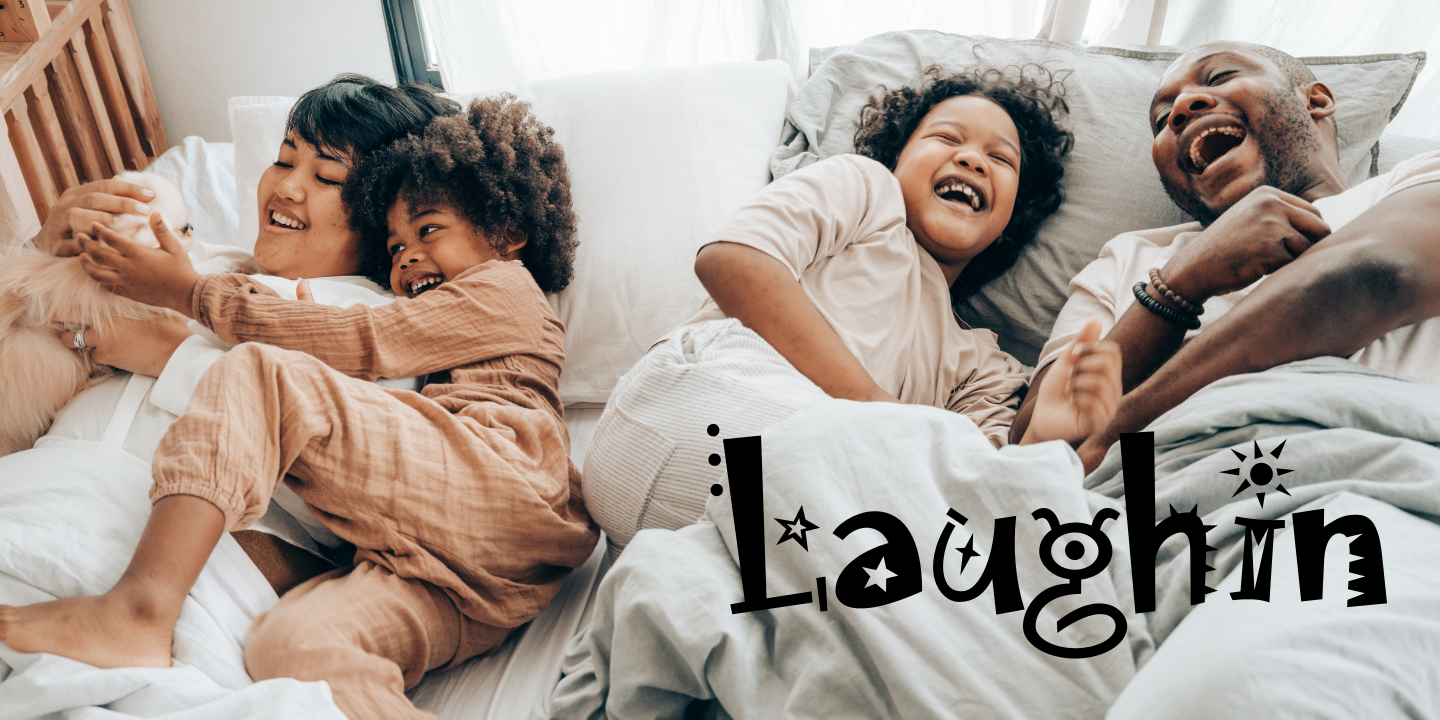
Infuse your designs with joyful energy using Laughin Font Free Download – a playful, hand-drawn typeface that captures the carefree spirit of laughter and spontaneity. This bubbly display font features irregular outlines and bouncy baselines, perfect for projects needing lighthearted character and youthful charm.
Why Laughin Font Stands Out
Laughin Font Free Download delivers:
Organic, giggle-inspired letterforms
Multiple stylistic alternates for variation
Perfect balance of fun and readability
Instant cheerful personality
Laughin Font Free Download Technical Features:
Uppercase and lowercase characters
Numbers and basic punctuation
Includes bonus doodle elements
Playful Applications:
Children's book titles
Party invitations
Social media graphics
Youth brand identities
Creative packaging
Design Tip: Tilt letters slightly and vary sizes for extra playful energy!